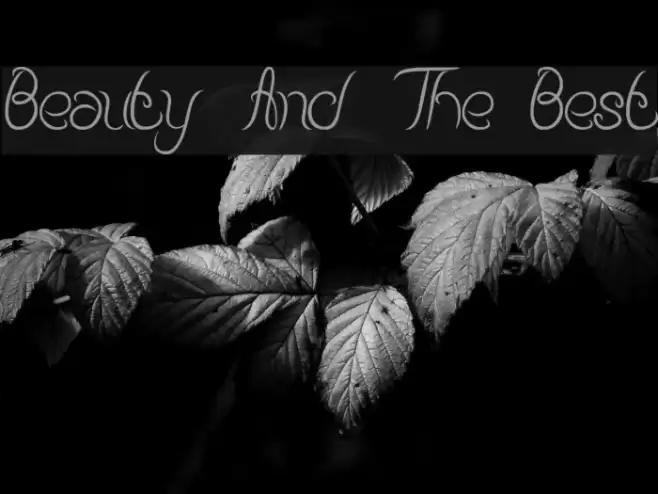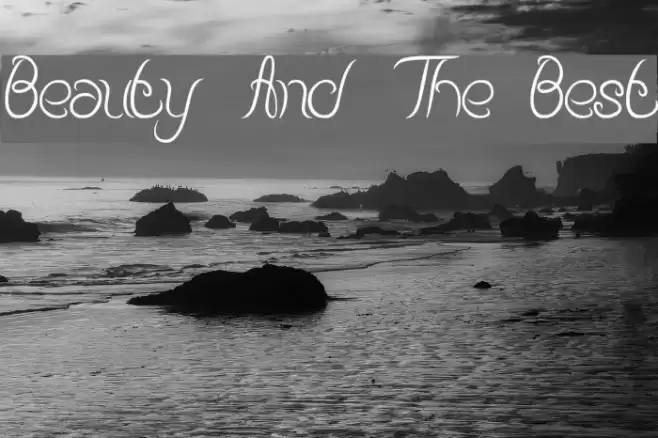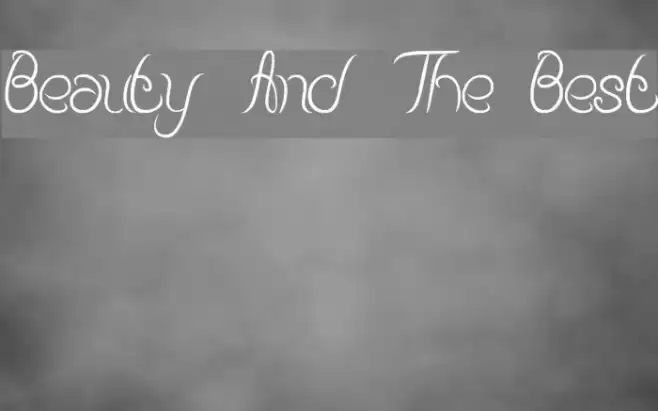
Beauty And The Best Font
Beauty And The Best Description
This font features an elegant and flowing script style with a whimsical touch. The characters are elongated and slightly slanted, giving a sense of movement and grace. The uppercase letters are particularly ornate, with loops and curves that add a decorative flair. The lowercase letters maintain a consistent style, complementing the uppercase with their own subtle flourishes. Numbers and special characters are designed to match the overall aesthetic, ensuring a cohesive look. The font's unique style makes it suitable for creative and artistic projects.
An elegant, flowing script font with whimsical, decorative elements from Uncategorized fonts.
- Proposed Projects: Ideal for wedding invitations, greeting cards, branding, and artistic projects that require a touch of elegance and creativity.
- Use Case: Headlines, Logos, Invitations